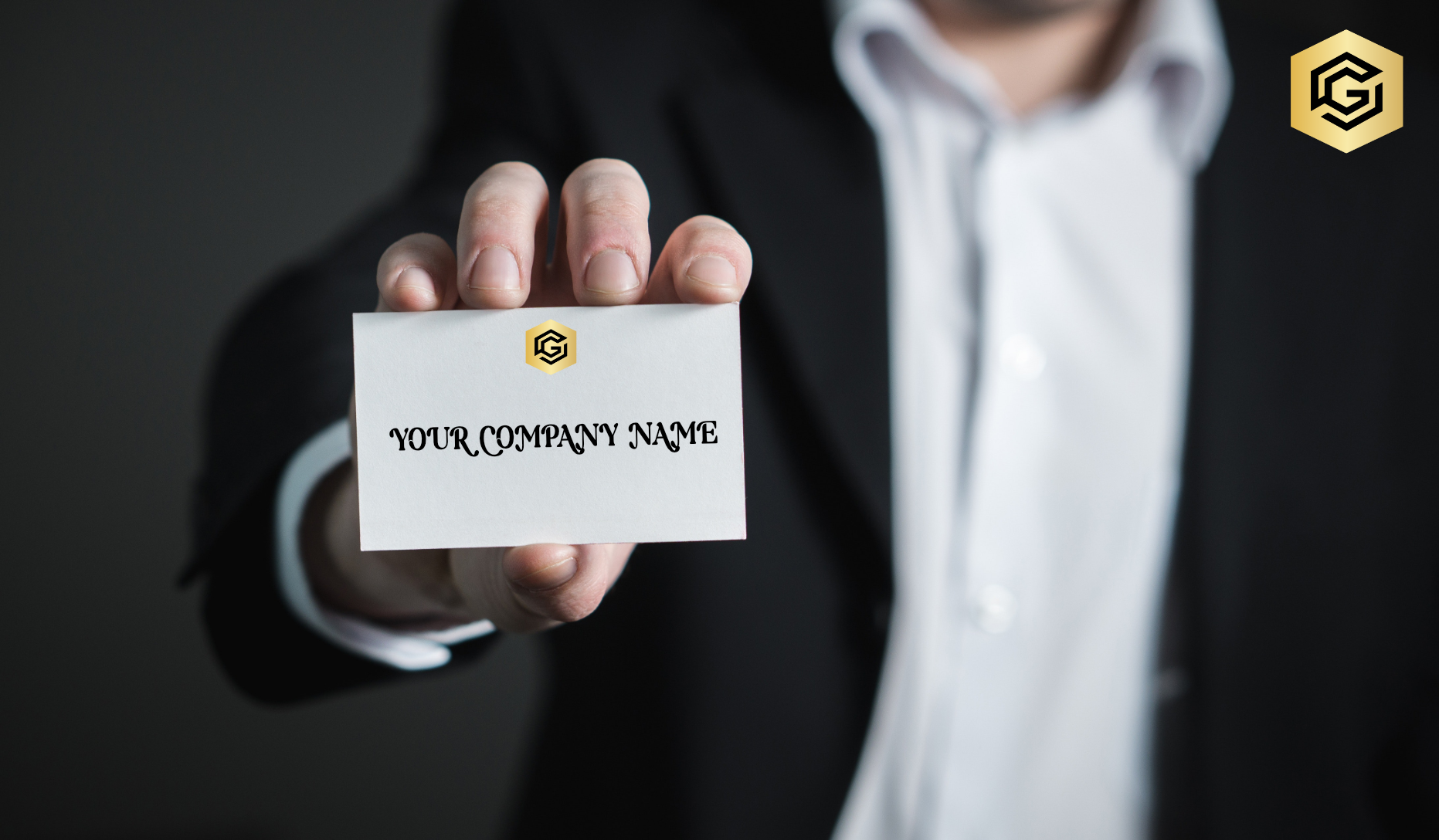
Noblesaga Font
“NobleSaga” is an elegant serif font that exudes sophistication and regal charm. Its distinguished serifs and graceful curves create a sense of prestige, making it perfect for projects that require a touch of nobility. With a harmonious balance between tradition and modernity, this versatile font adds a timeless and majestic quality to any design, whether it’s vintage book covers, formal invitations, or upscale branding. “NobleSaga” is a testament to the artistry of typography, inviting readers to explore its refined and captivating character.